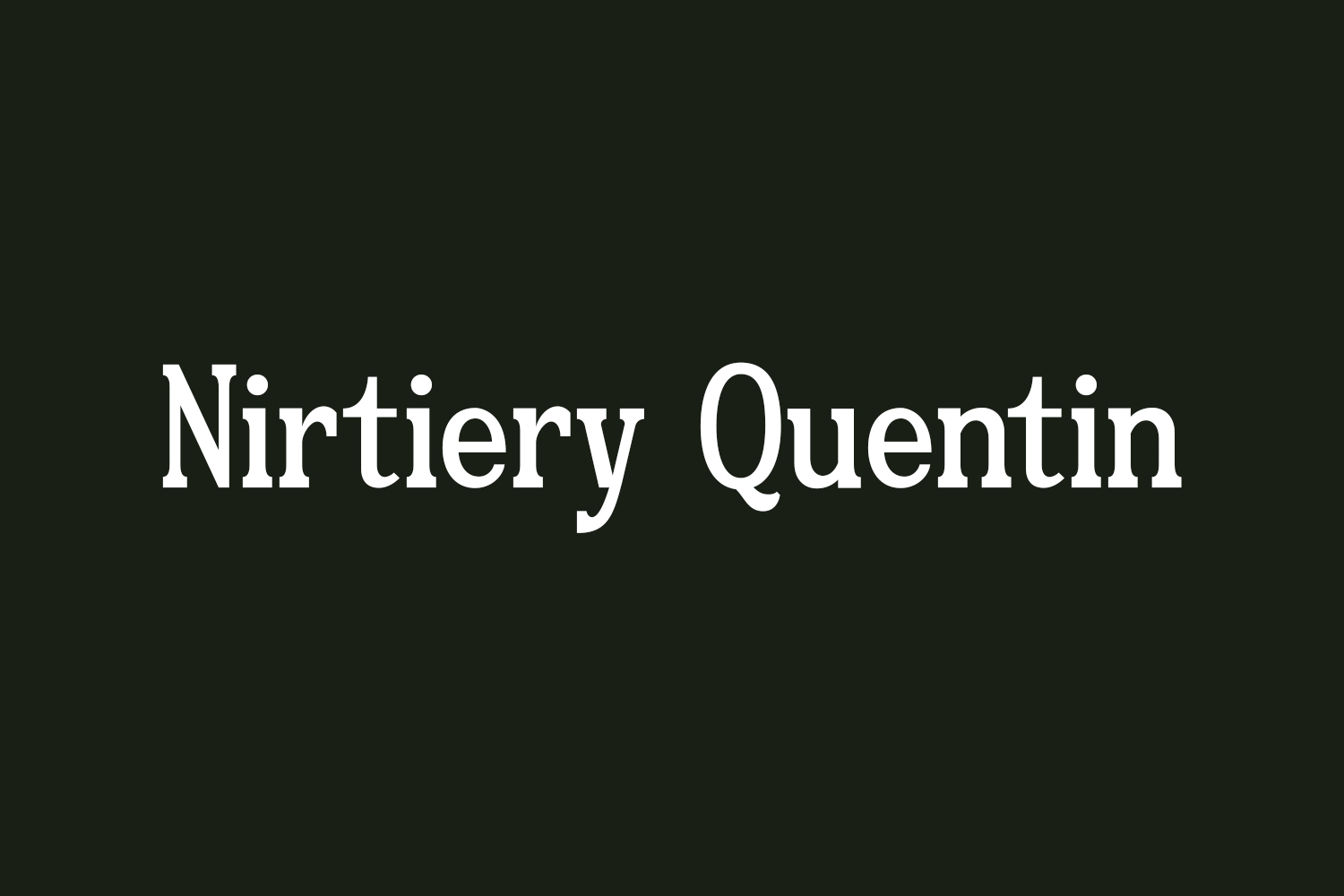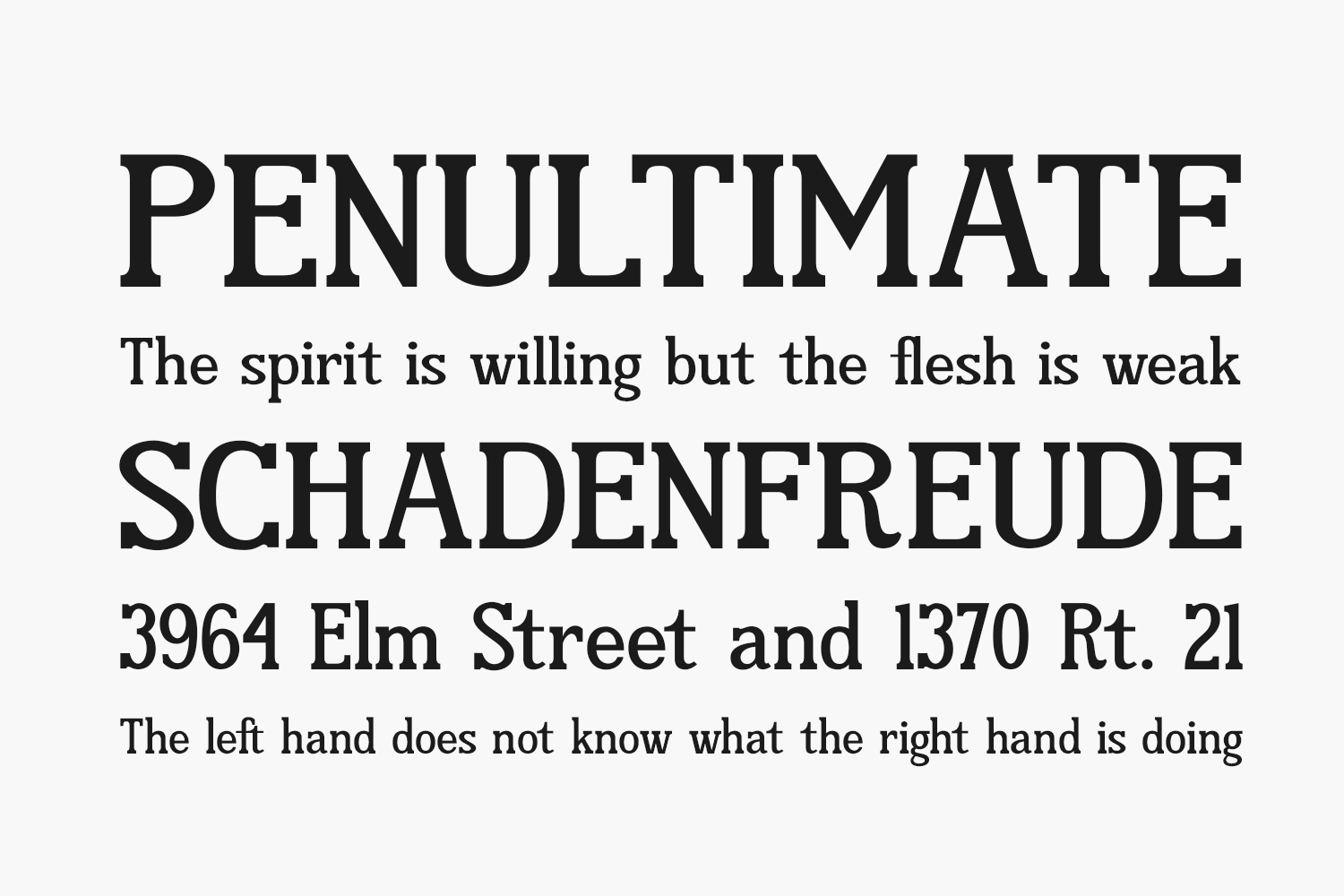
Nirtiery Quentin – Free Elegant Serif Font with Classic Sophistication
Nirtiery Quentin is a sophisticated serif typeface crafted by Storytype Studio, offering a modern yet timeless look that works beautifully for luxury branding. Featuring refined strokes and clean lines, it’s perfect for logos, book or movie titles, fashion brands, magazine layouts, apparel design, and inspirational quotes. The demo version is available in OTF format and is free for personal use only; commercial licenses can be obtained via Letterena.
Why Choose Nirtiery Quentin?
- Luxurious Serif Aesthetic: Elegant formal serif strokes that elevate premium designs.
- High-End Versatility: Ideal for upscale logos, fashion editorials, book and film titles.
- PUA‑Encoded Characters: Includes alternates and ligatures for refined typographic control.
- Rich Language Support: Covers multiple Latin languages including English, Italian, Cebuano, Swahili.
Where to Use Nirtiery Quentin?
- Logos & Luxury Branding: Offers upscale typography for boutique and fashion identities.
- Editorial & Magazine: Refined headers and pull-quotes in books or magazines.
- Titles & Packaging: Ideal for book/movie credits, high-end product labels.
- Social Media & Quotes: Elegant text overlays for Instagram, Pinterest, or YouTube thumbnails.
- Typography Projects: Excellent in classic letterings and inspirational poster designs.
Design Tips with Nirtiery Quentin
Apply it at larger sizes (24pt+) to showcase its serif details. Pair with minimalist sans-serifs like Space Odyssey or Open Sans for a modern contrast. Use muted, luxurious palettes—black, cream, gold—for sophisticated appeal. Use ligatures and alternates sparingly for refined elegance.
- Glyphs: Uppercase A–Z, lowercase a–z, numerals, punctuation, alternates/ligatures (~250 glyphs).